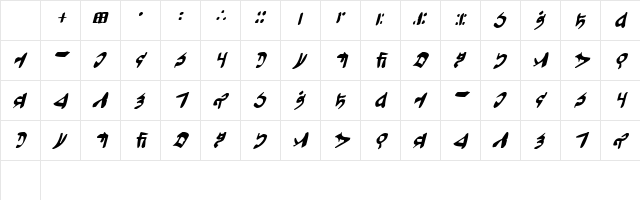
Complete Tuigan Italic glyph index. Displaying only characters natively supported by Tuigan Italic font.
Tuigan is a composed and adaptable typeface that performs quietly and consistently across a wide range of design contexts. The slanted form adds forward momentum and visual energy.